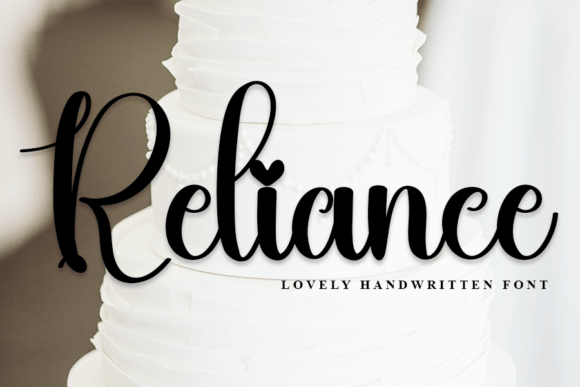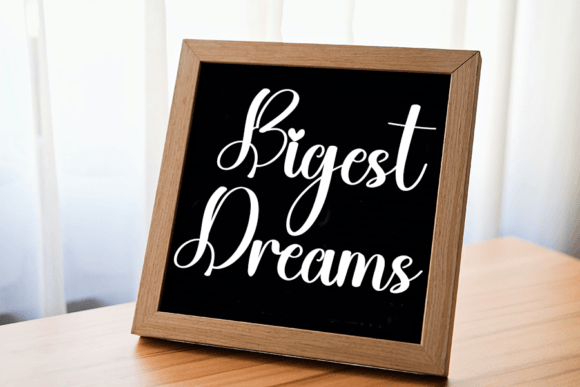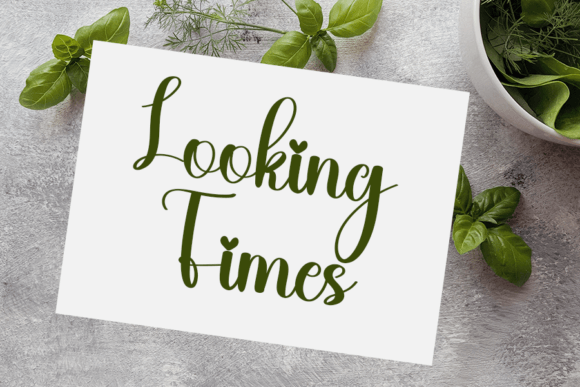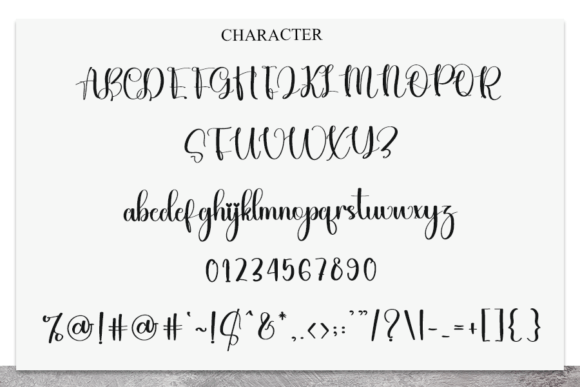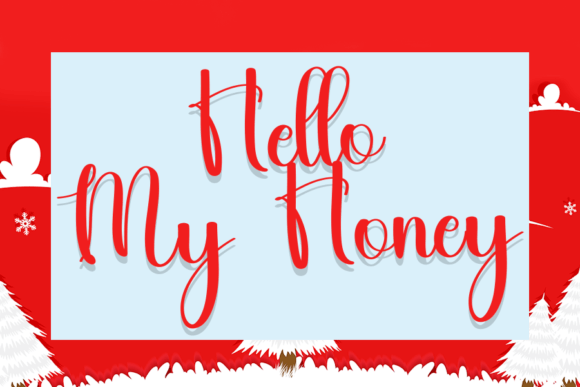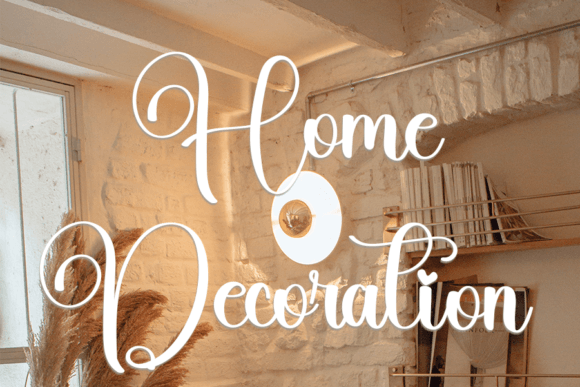
Reliance Font
About Reliance Font
Reliance is a trendy handwritten font with a contemporary atmosphere and impeccable form, inspired by timeless classic calligraphy. It will add elegance and class to any of your design projects.